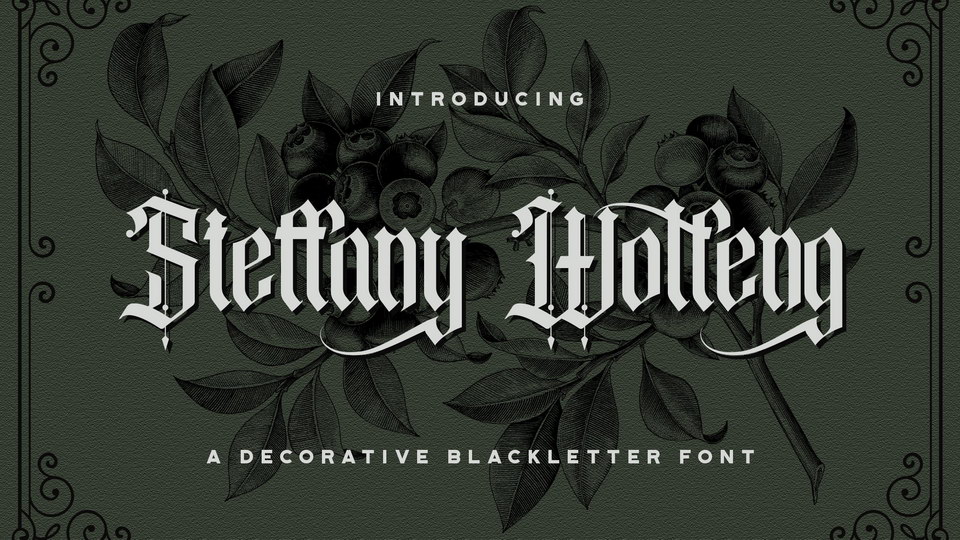
Download Steffany Wolfeng font, an incredibly authentic and daring blackletter typeface. Add Steffany Wolfeng to your favorite creative projects and notice how it makes them stand out.